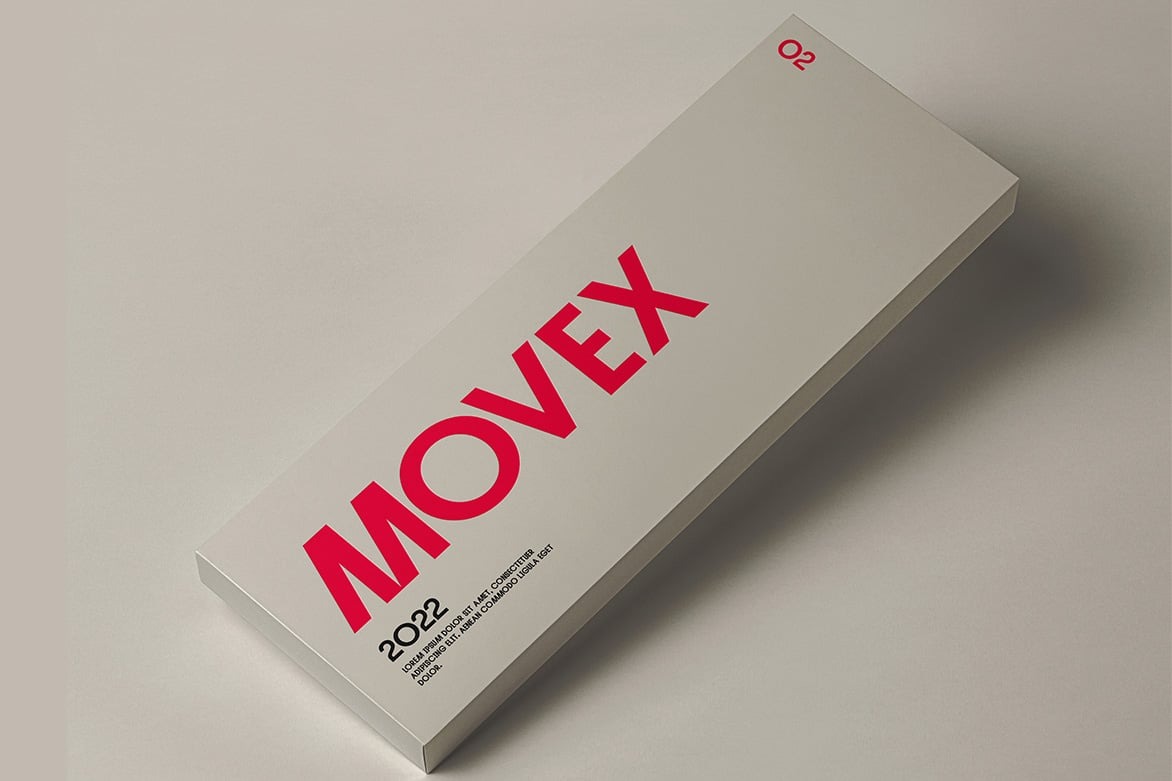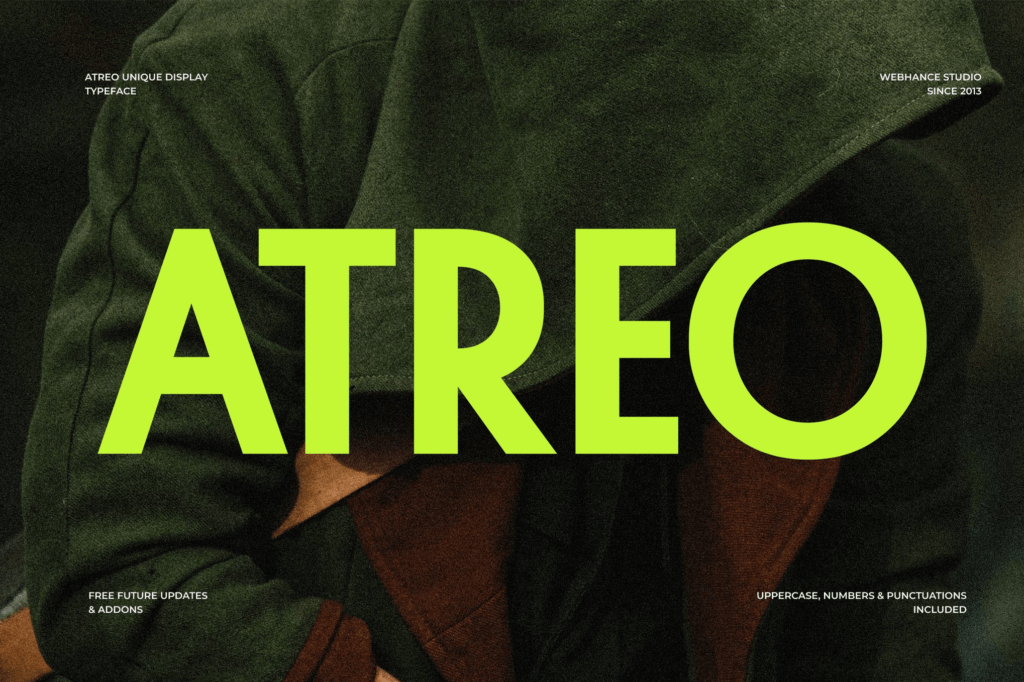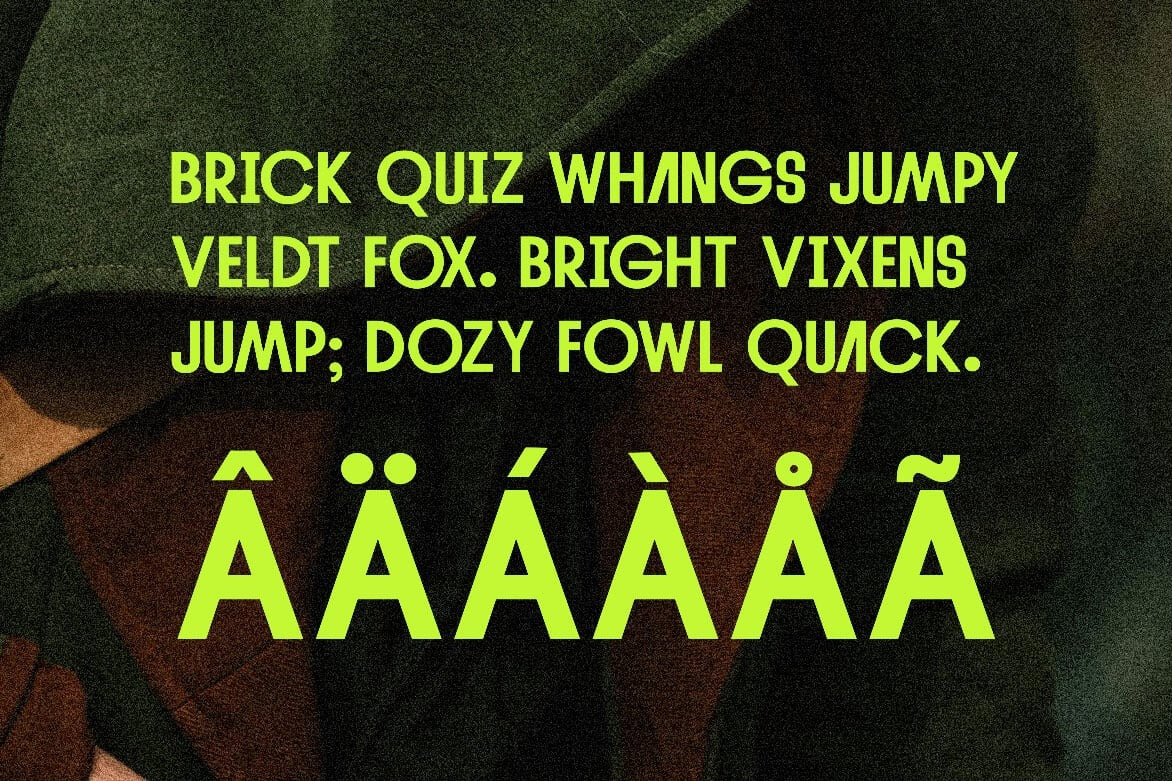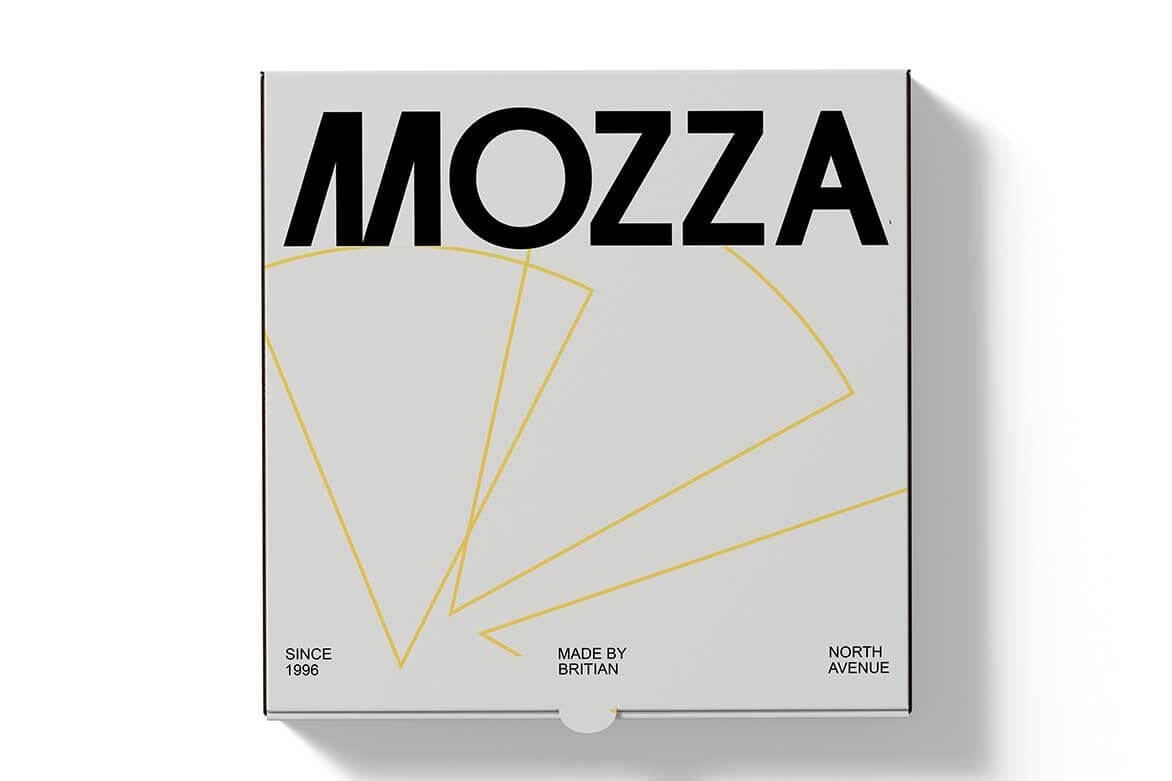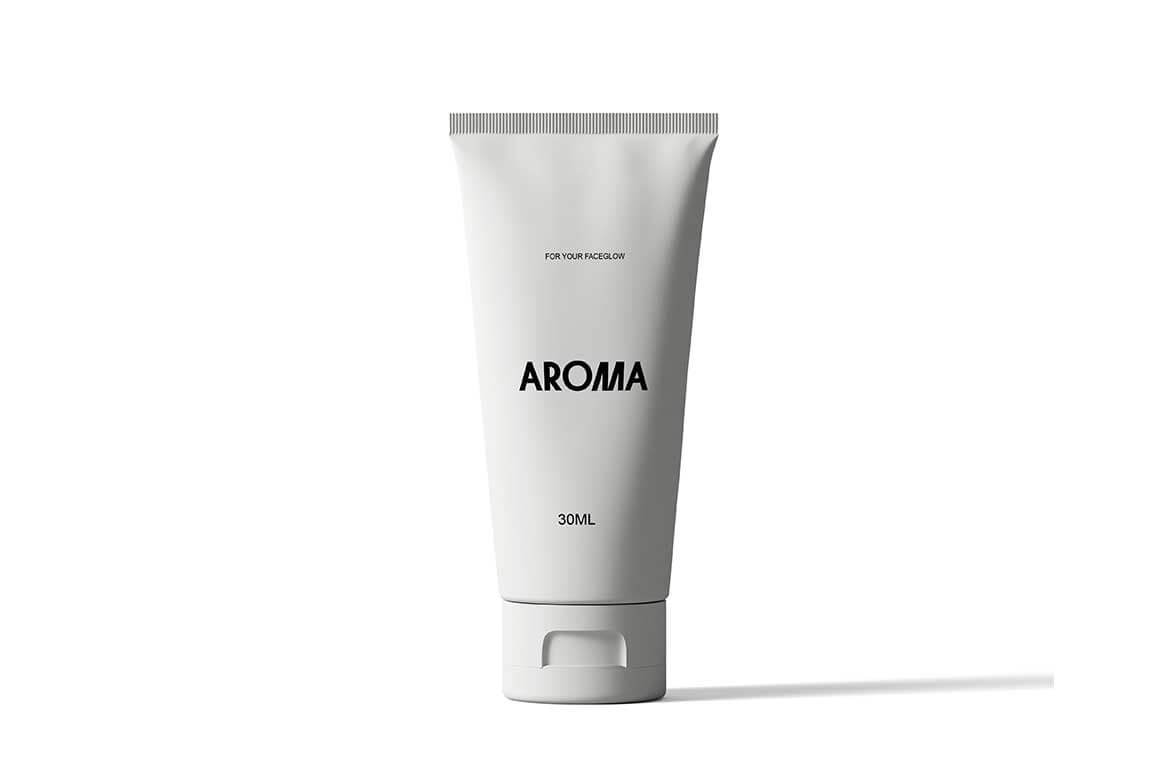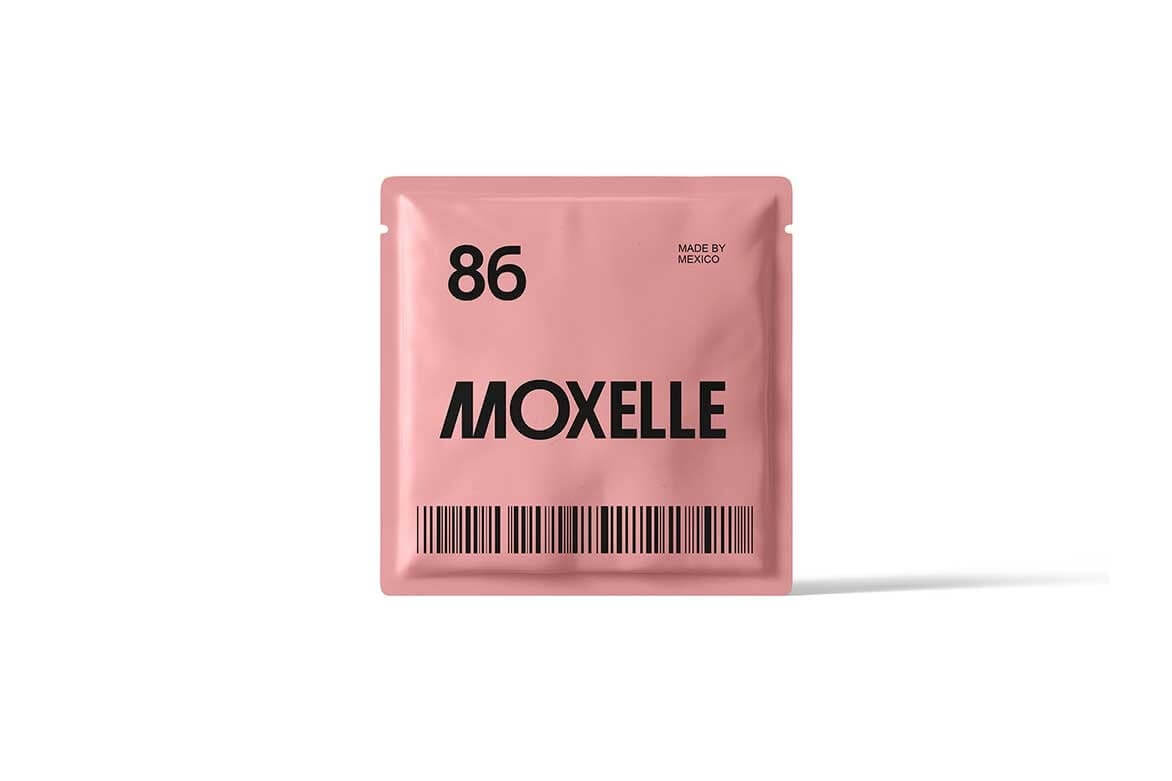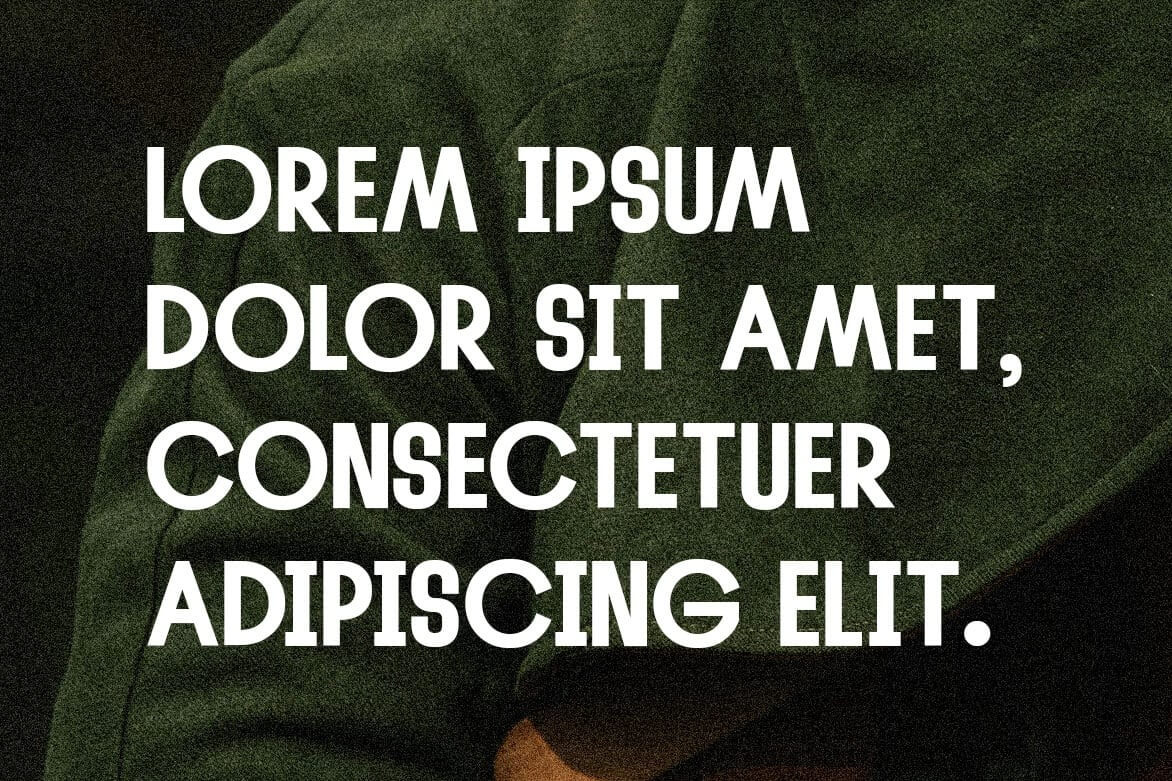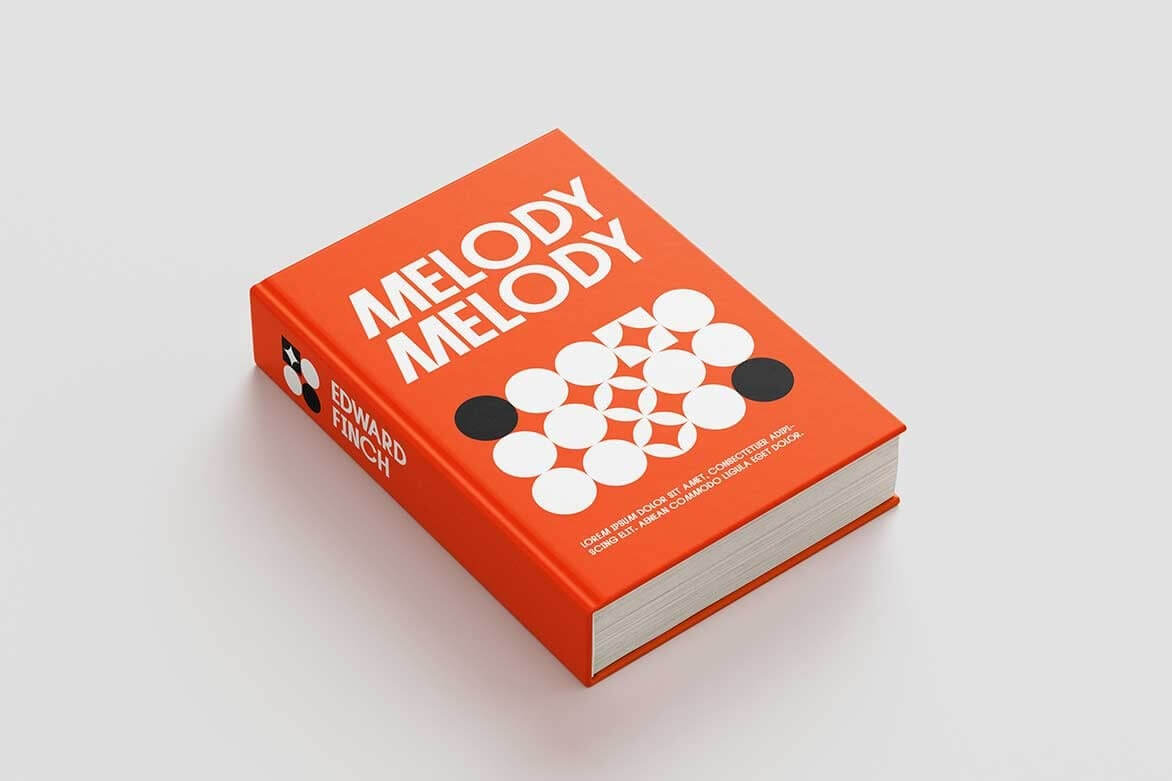
The Atreo Display font is a modern sans-serif typeface family built for designers who value elegance, clarity, and functionality. Designed with clean lines and minimalist proportions, Atreo brings a contemporary edge to any project—whether you’re building a brand, laying out editorial content, designing UI interfaces, or crafting polished print materials.
With a refined geometric structure and excellent legibility, the Atreo Display font ensures that your typography remains both beautiful and readable across platforms. Its versatility makes it suitable for everything from logo design to mobile apps, and from magazine spreads to product packaging.
This font family is crafted with balanced proportions that give it a universal appeal, making it ideal for high-end branding as well as functional text design. It seamlessly combines modern simplicity with subtle elegance, allowing it to adapt to a variety of design environments without losing its unique identity.
Whether you’re creating digital experiences, professional presentations, or marketing materials, the Atreo Display font enhances visual communication with style and precision. It’s optimized for both print and digital media, offering the perfect balance between design impact and user-friendliness.
Add a touch of modern sophistication to your next creative project with the Atreo Display font—where simplicity meets design excellence.